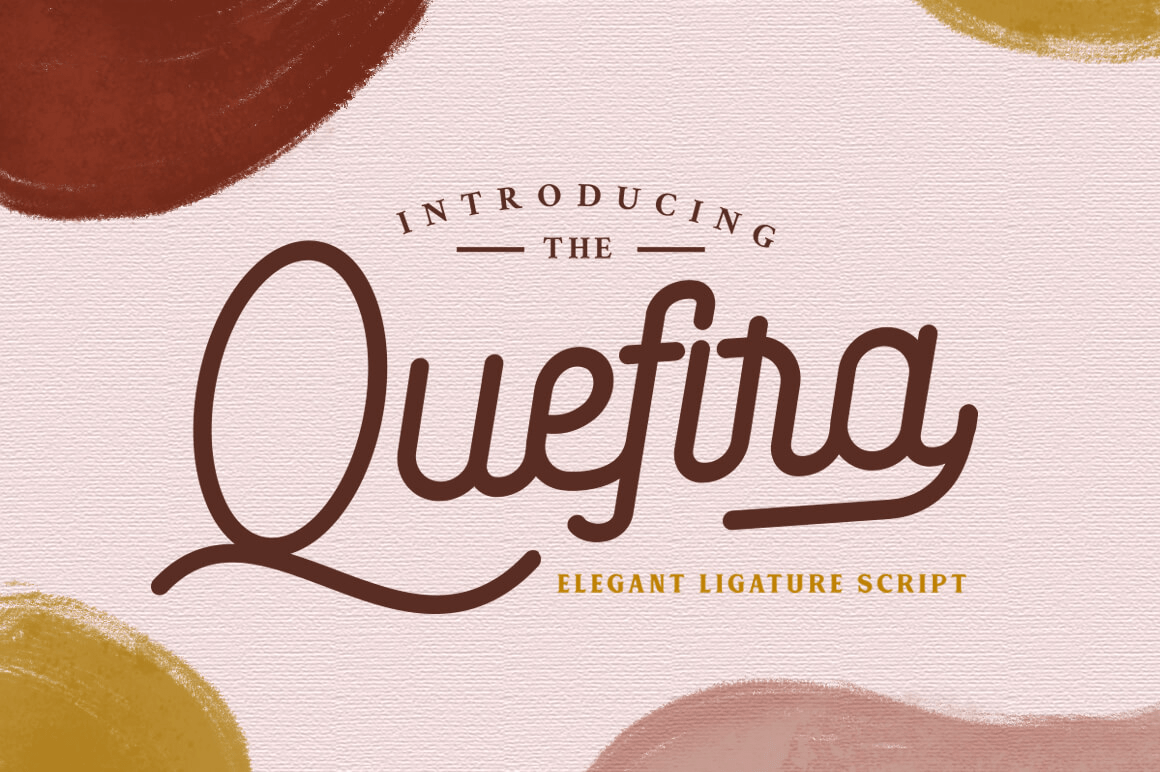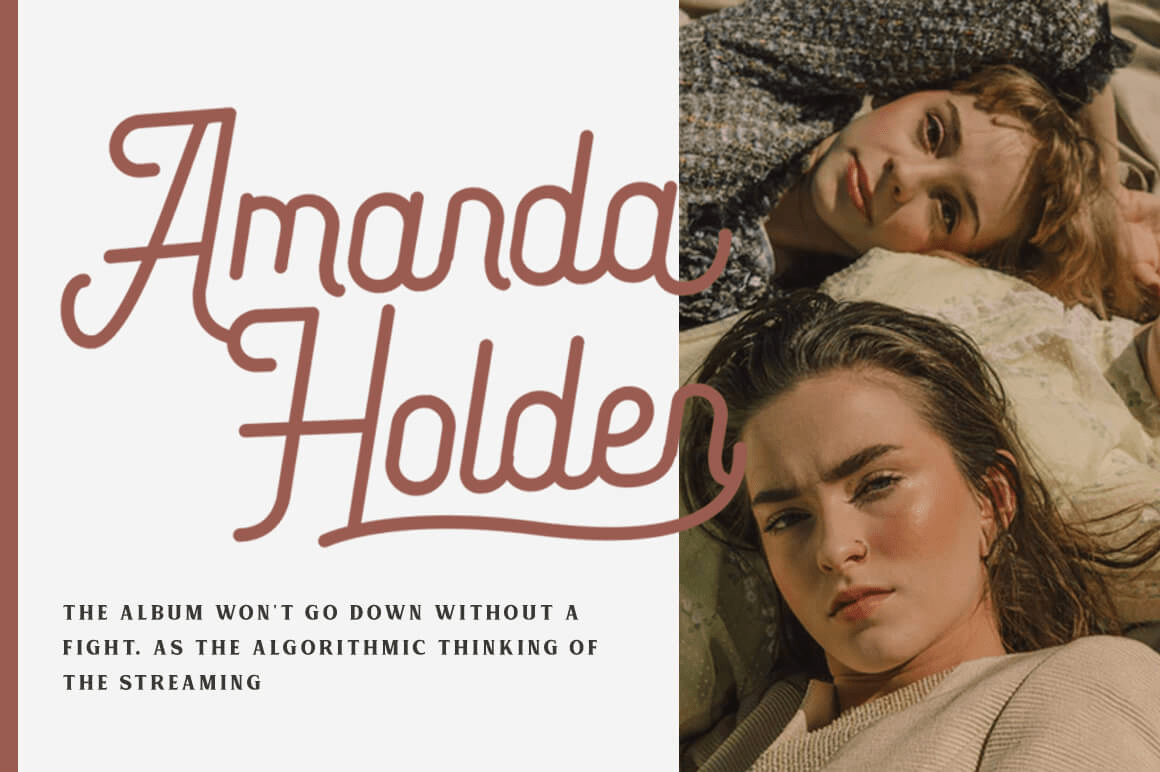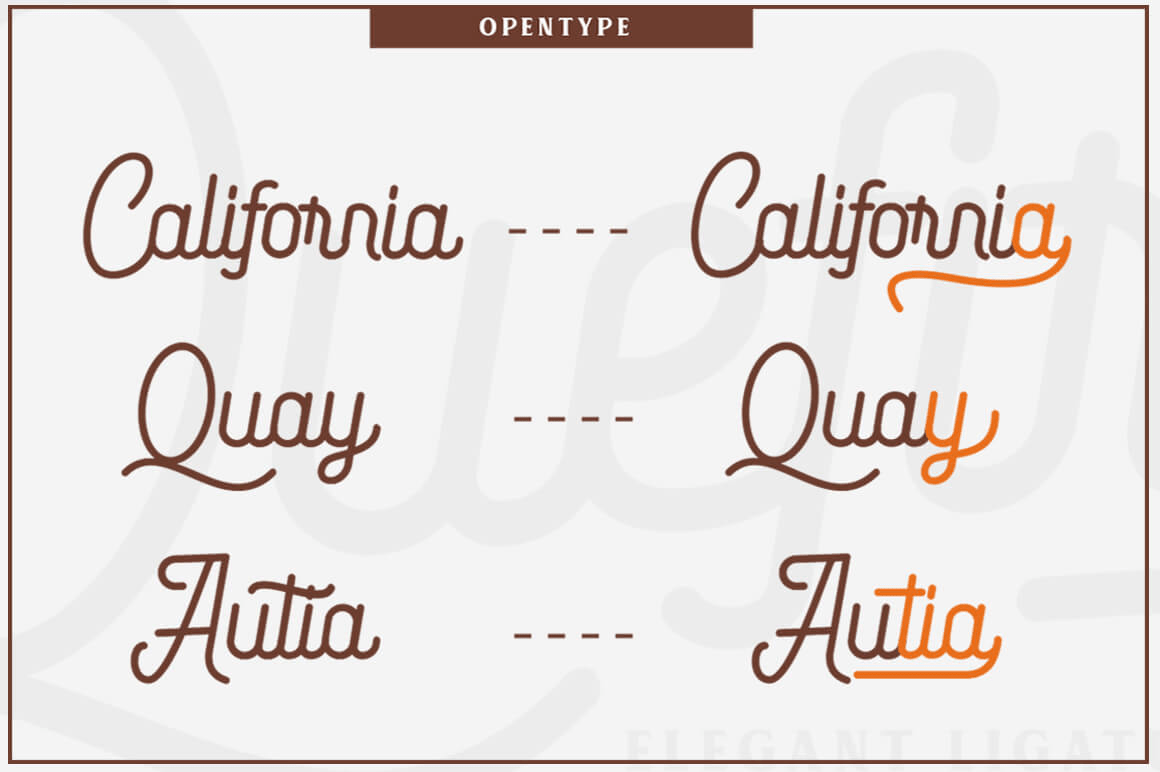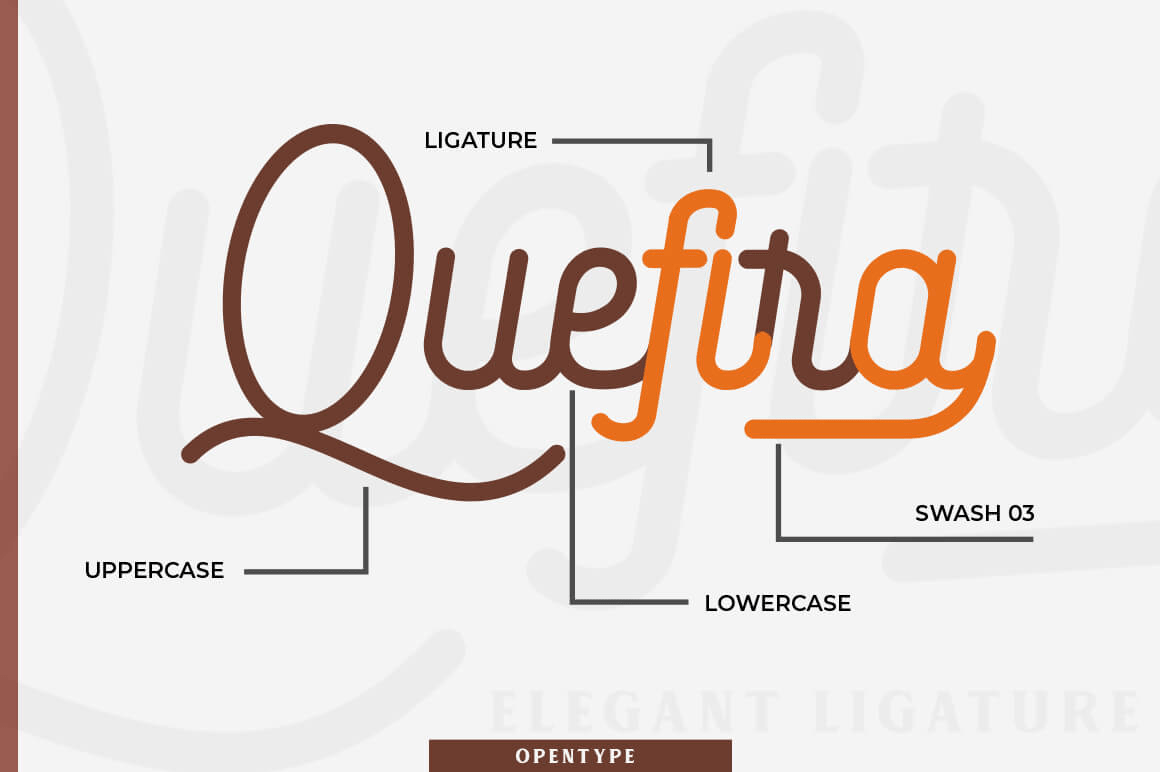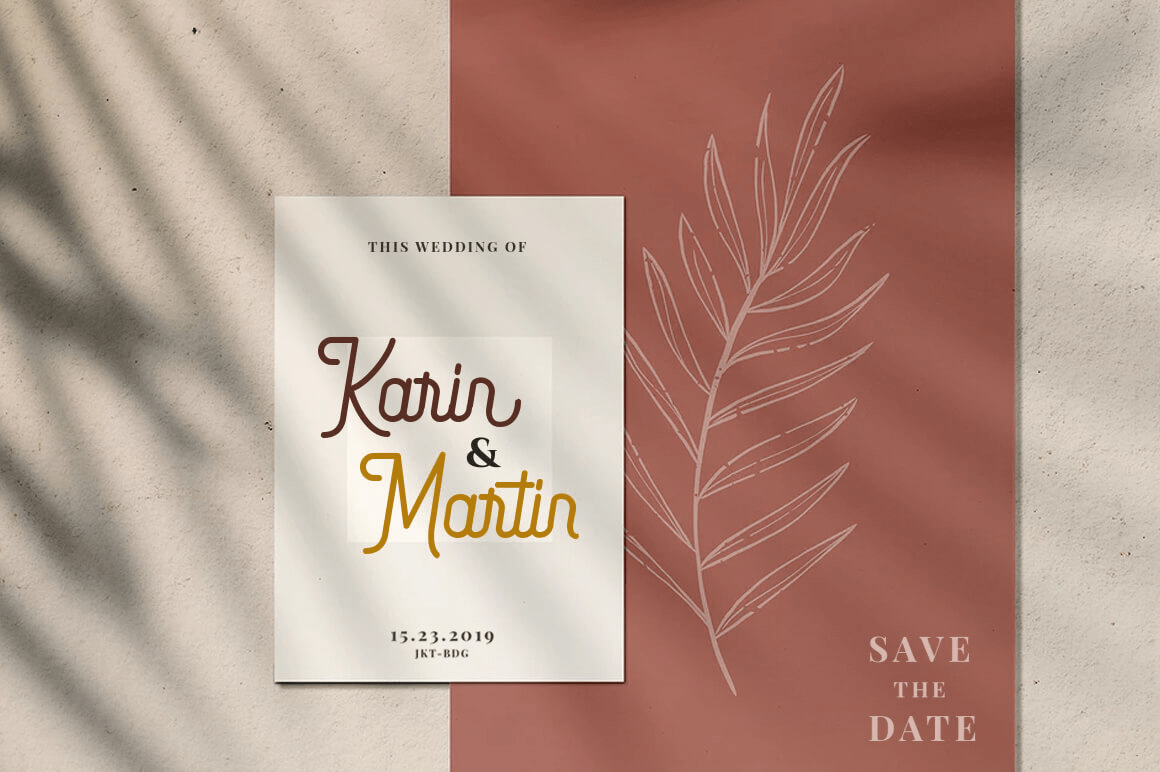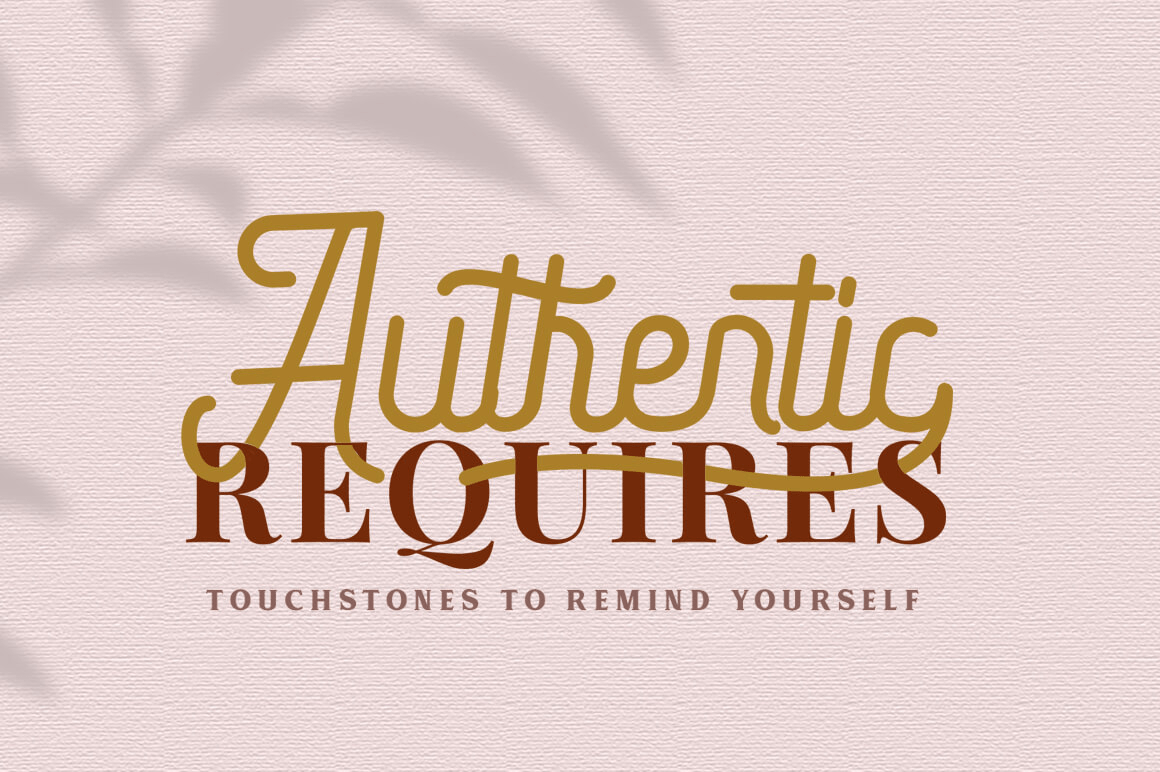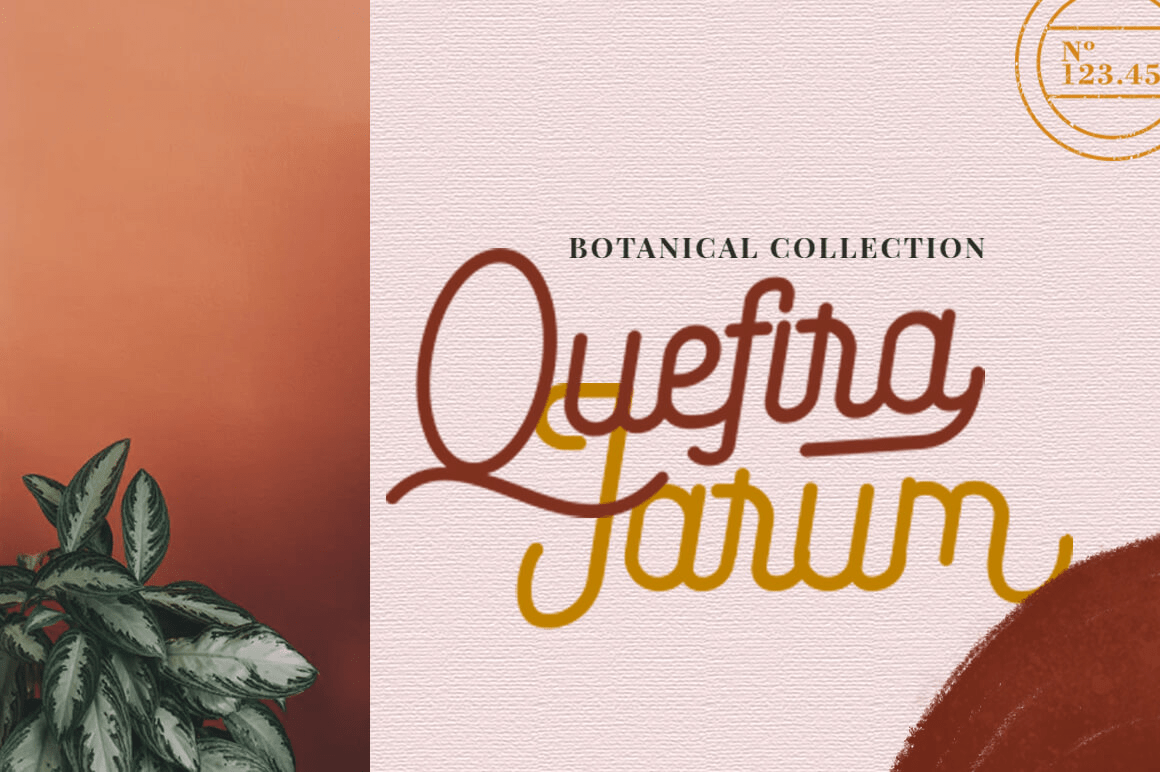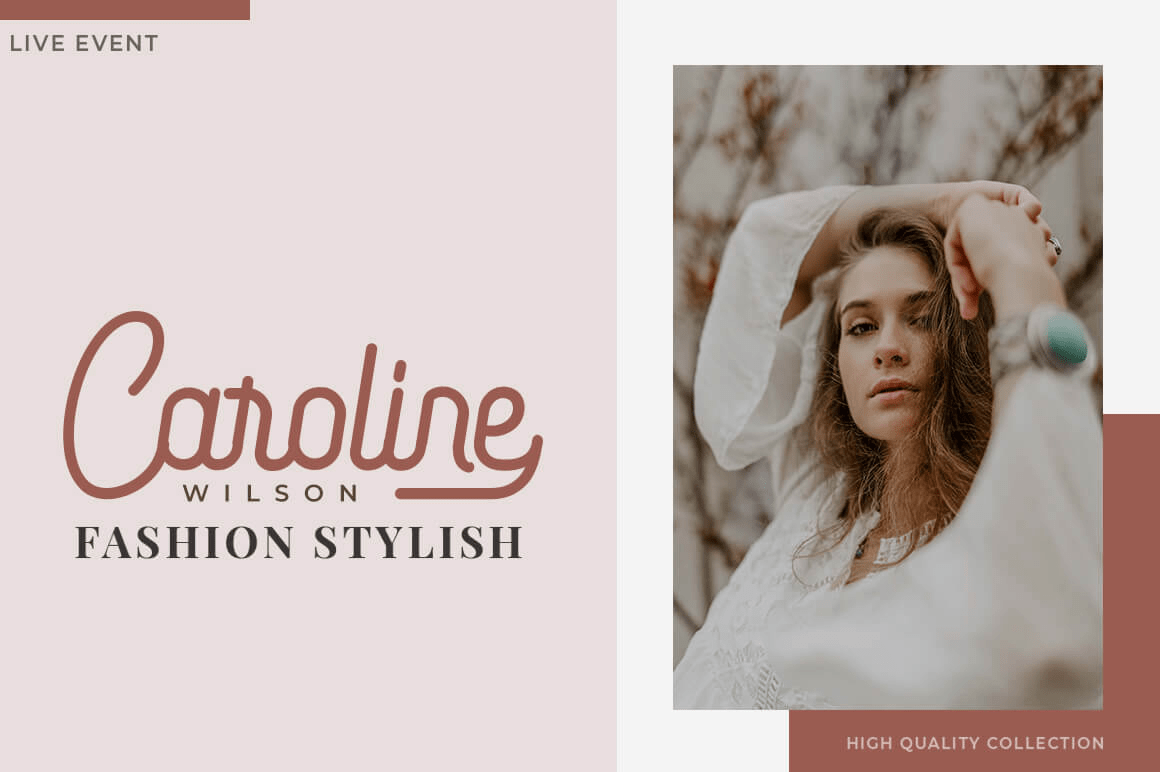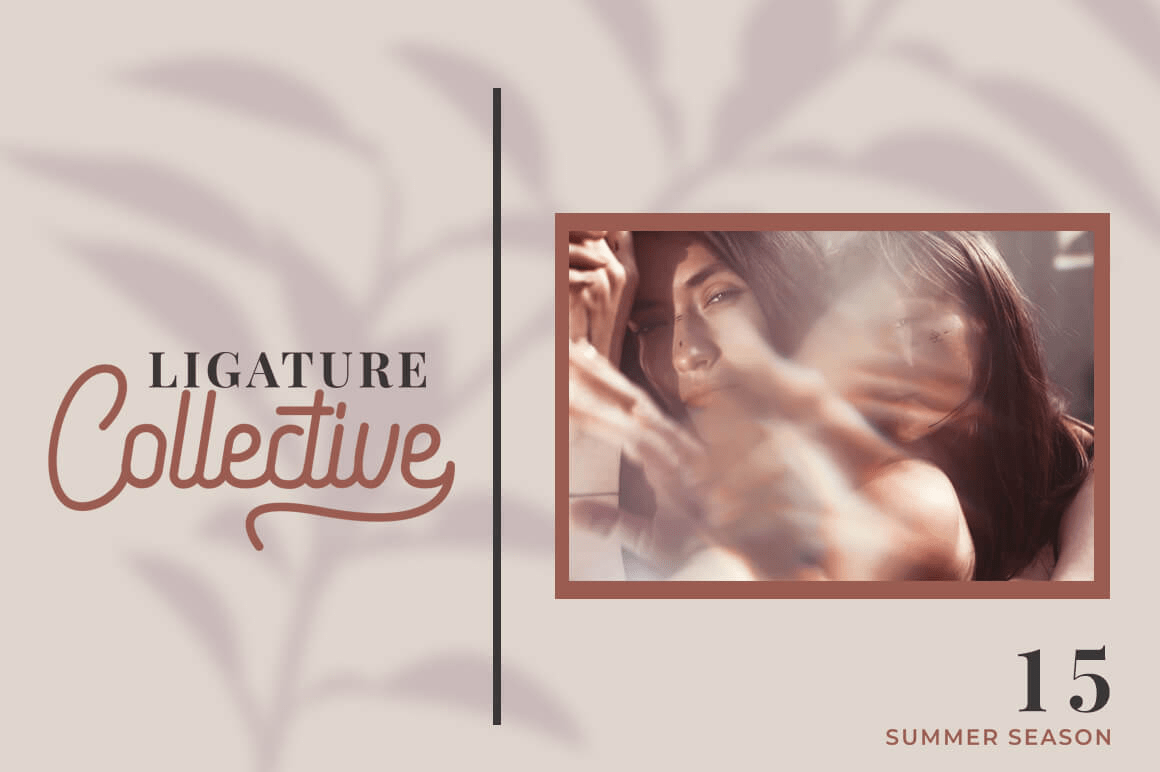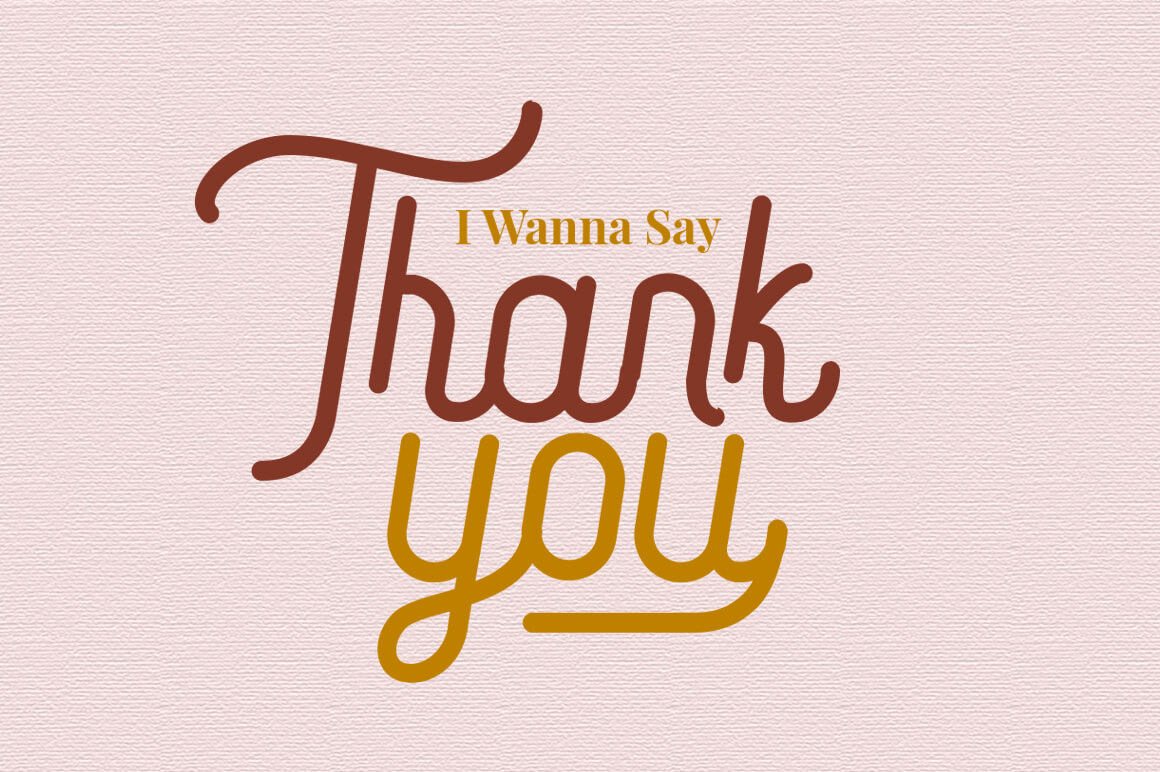
Quefira
Quefira Script is clean and minimalistic script with beautiful ligature and alternate font. It also works wonderfully on its own for logos, quotes, and more!
All characters have an imperfect shape that gives a natural look in design. It easily coordinates together and perfect for creating the traditional style logos, labels, package design, lettering for t-shirts and much others.
This font has a vintage feel and is great for logotype, branding design, vintage logo design, digital lettering arts, retro, brush font, script font, bold script, Vintage lettering, and any vintage design needs.